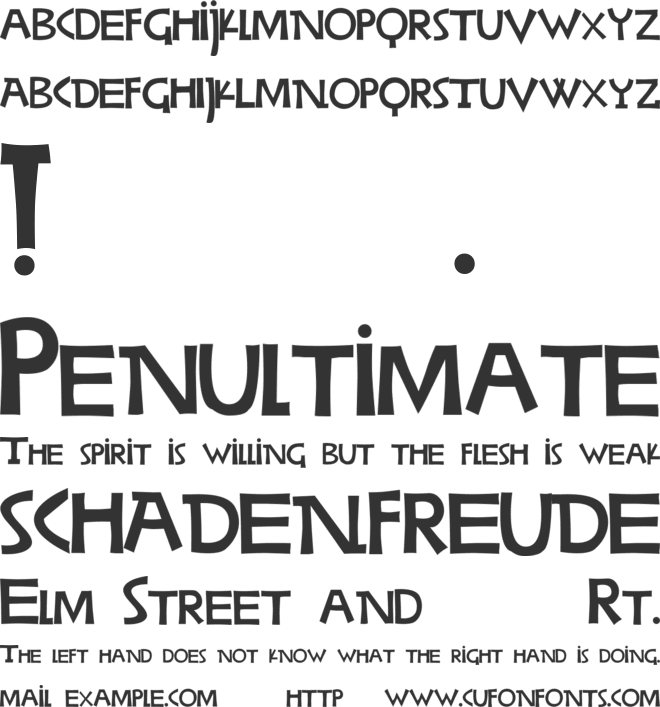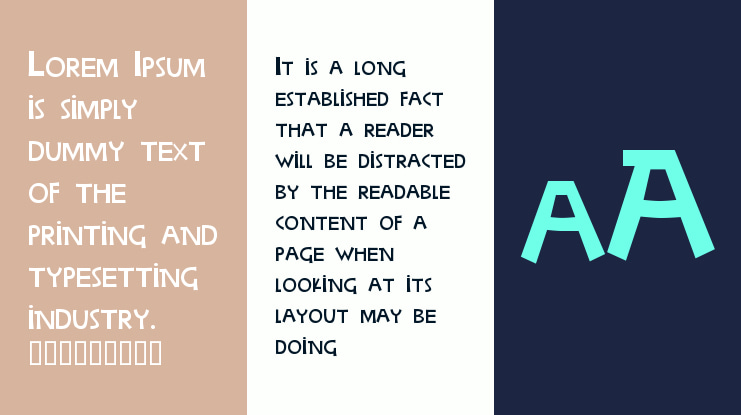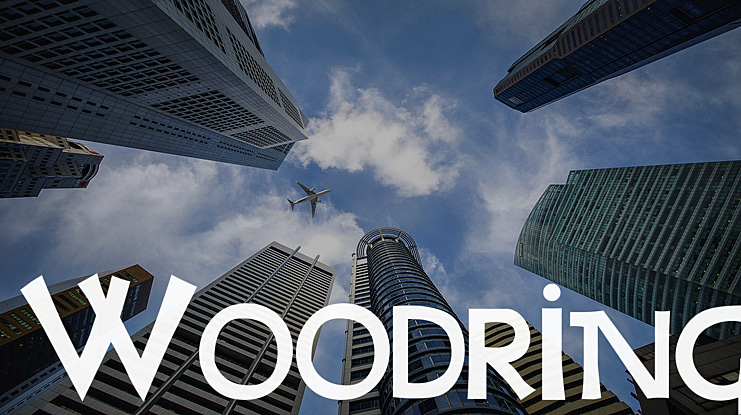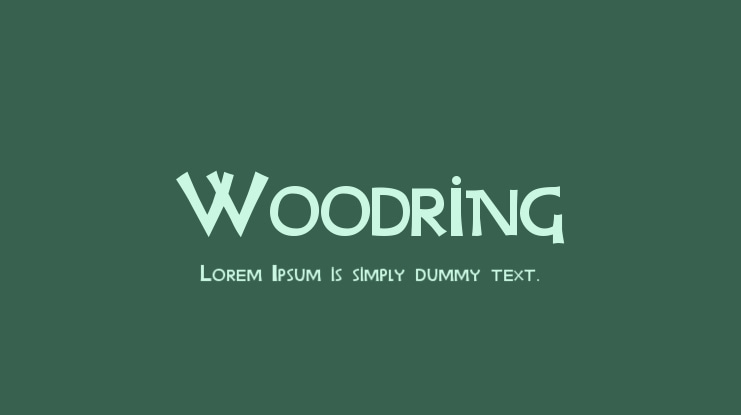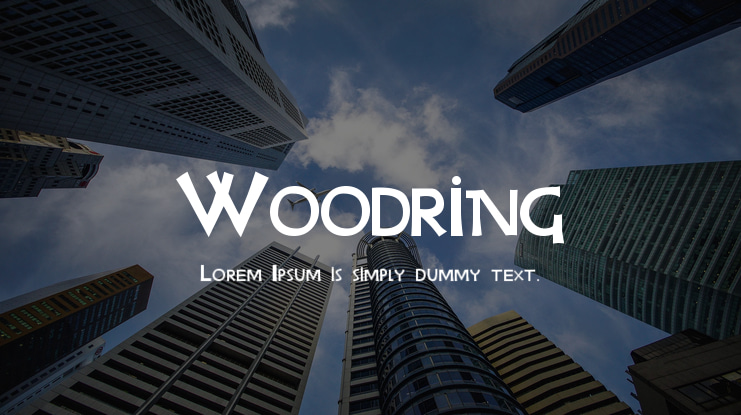
Woodring Font
Another FontFace font of the day and a four-bee font. Named for a girl who moved to Florida. I was at a rave called Something Happ-E a few weeks ago and I SWEAR I saw the font announcing the next dj, which was Huggie. Weird...could've been hallucinating, though. By Greg